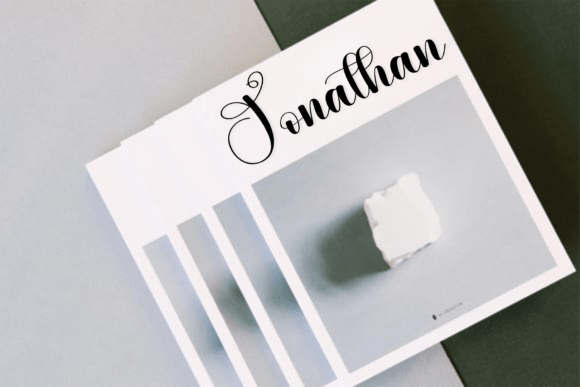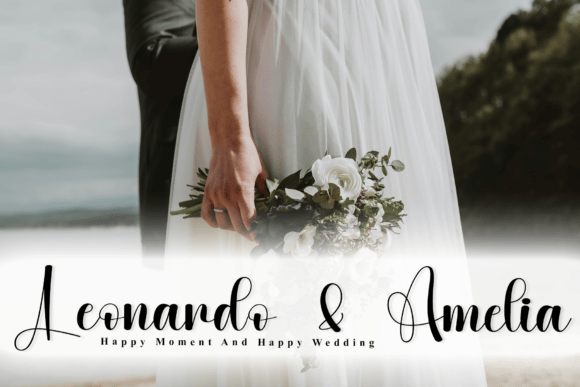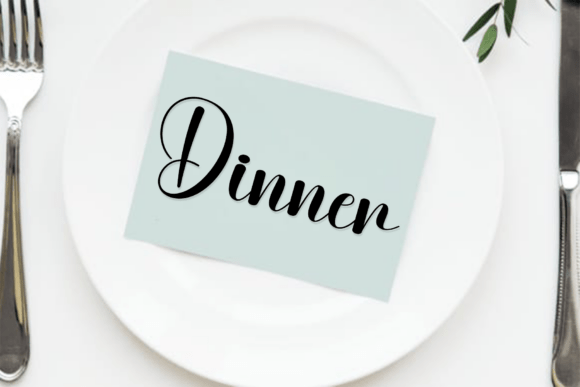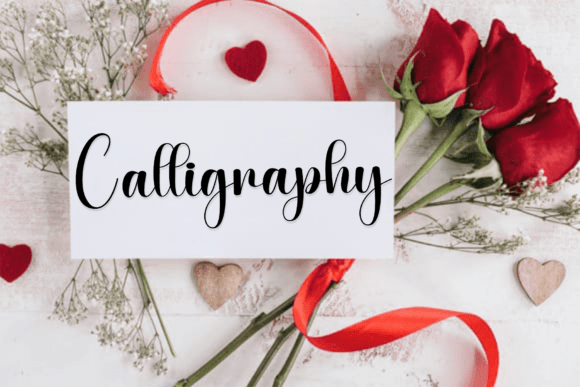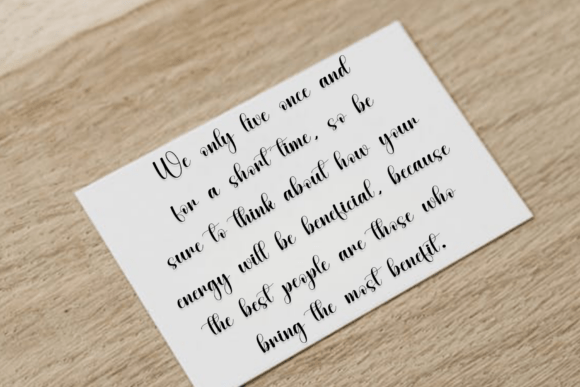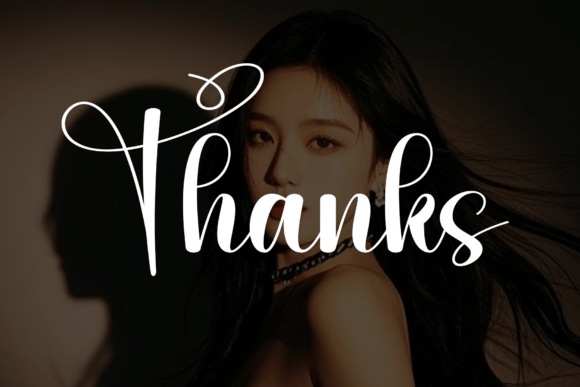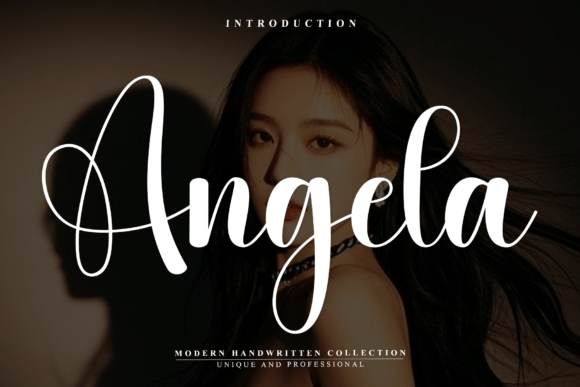
Introducing Angela: The Epitome of Elegance in Modern Handwritten Fonts
In the realm of typography, few fonts manage to convey the essence of luxury and sophistication as effortlessly as Angela. This modern handwritten collection piece is a masterclass in elegance, defined by its intricate flourishes and romantic loops that dance across the page. Angela is not just a font; it’s an experience, designed to elevate your designs to the height of refinement and poise.
The Distinctive Characteristics of Angela
What sets Angela apart is its delicate, overlapping lines in the capital letters, a feature that creates a bespoke, custom-lettered look. This unique characteristic imbues any design with a sense of exclusivity and high-end quality, making it feel as though each letter has been painstakingly crafted by hand. The result is a font that exudes an air of bespoke luxury, perfect for those who aim to make a statement of elegance and refinement.
Angela’s Design Inspirations and Applications
Angela’s design draws inspiration from the world of high fashion and luxury branding, where exclusivity and attention to detail are paramount. Its intricate flourishes and delicate loops are reminiscent of calligraphy used in high-end wedding invitations, bespoke jewelry branding, and premium beauty packaging. This font is specifically crafted for creatives who specialize in high-end wedding stationery, jewelry branding, and delicate beauty packaging, offering a typographic solution that matches their elevated standards.
Crafting Your Brand’s Identity with Angela
For designers and crafters looking to imbue their projects with a touch of sophistication, Angela offers a versatile yet distinctive solution. Whether you’re creating wedding invitations that need to convey the couple’s refined taste, branding for a luxury jewelry line that demands elegance, or packaging for a high-end beauty product that promises exclusivity, Angela can help you achieve your vision. Its unique characteristics ensure that your designs stand out in a crowded market, offering a refreshing alternative to more common, generic fonts.
Why Choose Angela for Your Projects?
- Elegance and Sophistication: Angela brings an unparalleled level of elegance and sophistication to any project, ensuring your designs are perceived as high-end and luxurious.
- Versatility: Despite its specific design for certain niches, Angela’s versatility means it can be adapted across a range of creative projects, from digital content to print materials.
- Custom-Look: The font’s bespoke, custom-lettered appearance sets it apart, offering a unique aesthetic that’s hard to replicate with standard fonts.
- Attention to Detail: Angela’s intricate flourishes and delicate loops showcase a high level of detail, reflecting a commitment to quality and excellence.
Angela is more than just a font; it’s a statement of elegance, a testament to the power of typography in defining the aesthetic and emotional impact of a design. For designers and crafters seeking to create high-end wedding stationery, jewelry branding, and delicate beauty packaging that exudes luxury and sophistication, Angela offers the perfect solution. Experience the height of elegance with Angela, and elevate your designs to new heights of refinement and exclusivity.
Discover the transformative power of Angela in your next project, and let its intricate flourishes and romantic loops leave a lasting impression on your audience.